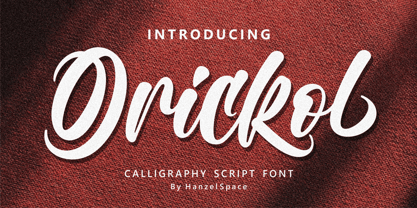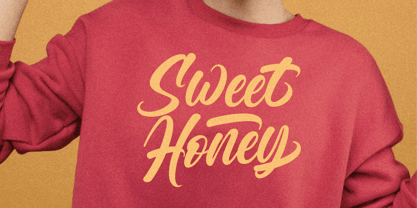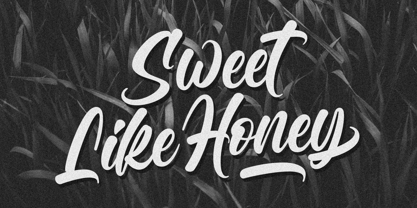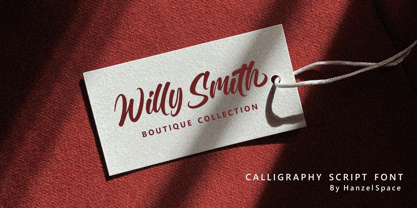
Orickol
by Hanzel Space
The Orickol Font Family was designed by Hanief Farandi and published by Hanzel Space. Orickol contains 1 styles.
Orickol – Calligraphy Script Font This font is designed naturally and very smoothly so it has a unique character. This type of font is perfectly made to be applied especially in logos, and the other various formal forms such as invitations, labels, logos, magazines, books, greeting / wedding cards, packaging, fashion, make up, stationery, novels, labels or any type of advertising purpose. Features: Uppercase & Lowercase Numerals & Punctuation Ligatures Multilanguage Supports Swash   Thanks so much for checking out my shop! Cheers! Happy Creating! Hanzel Space Studio
Designers: Hanief Farandi
Publisher: Hanzel Space
Foundry: Hanzel Space
Hanzel Space is the Indonesia based type and graphic design studio of Hanief Farandi. He focused his love of all things typography and hand lettering into Hanzel Space where he create handmade typefaces that are versatile and modern, .We do font design with seriousness to produce original works. Our design process starts from a sketch of an idea and become a font product by digitizing it.We produce fonts with market research styles that are trending and that are in high demand (popular) in several marketplaces